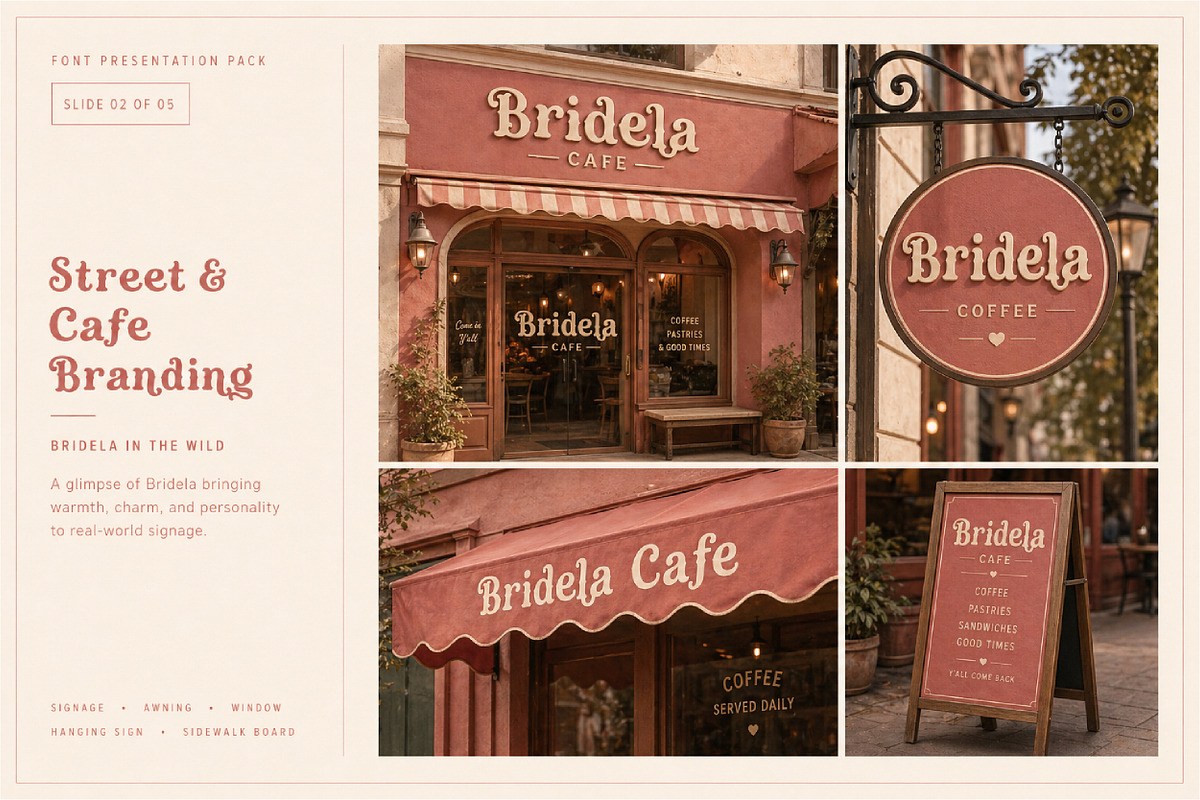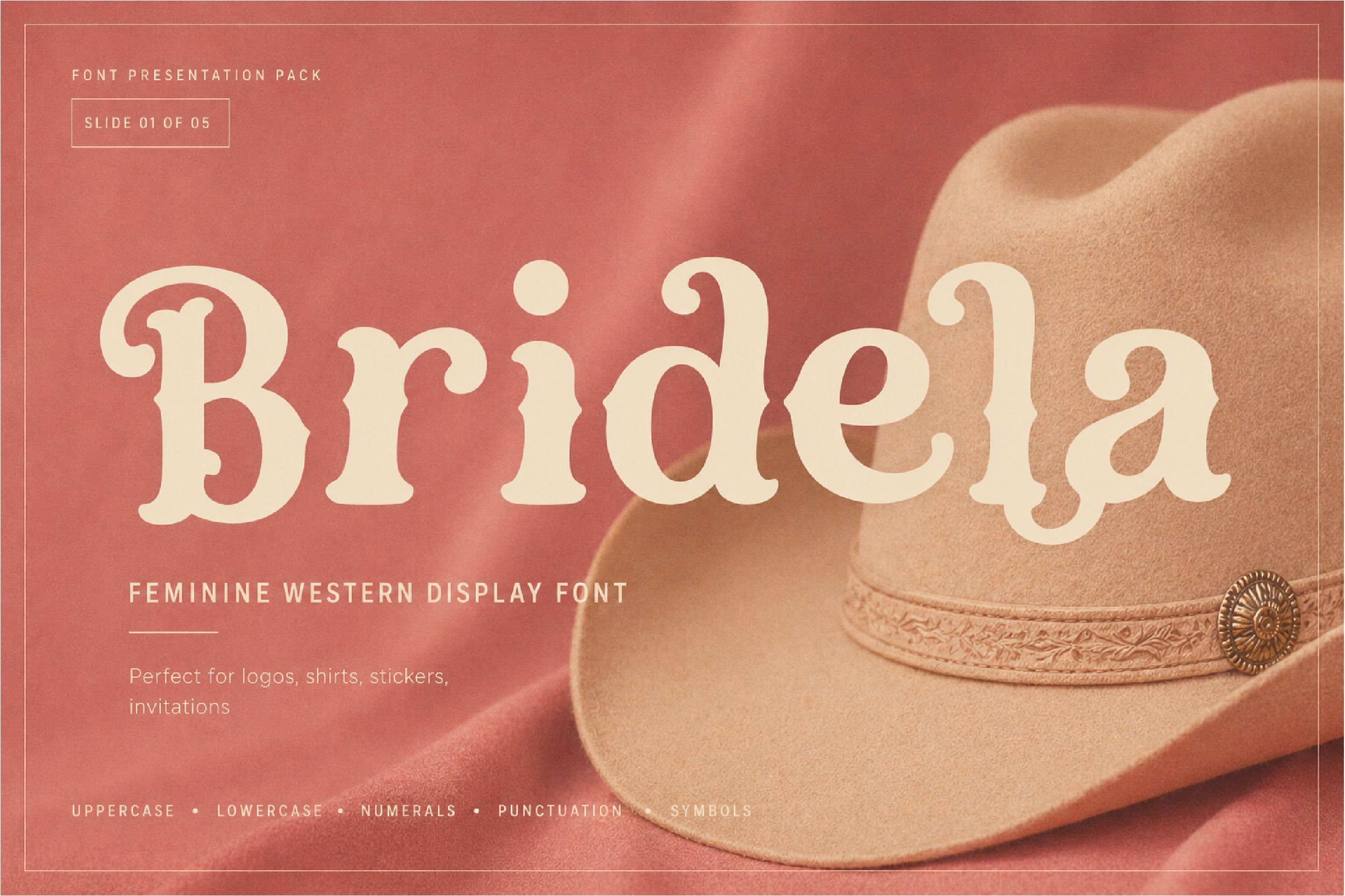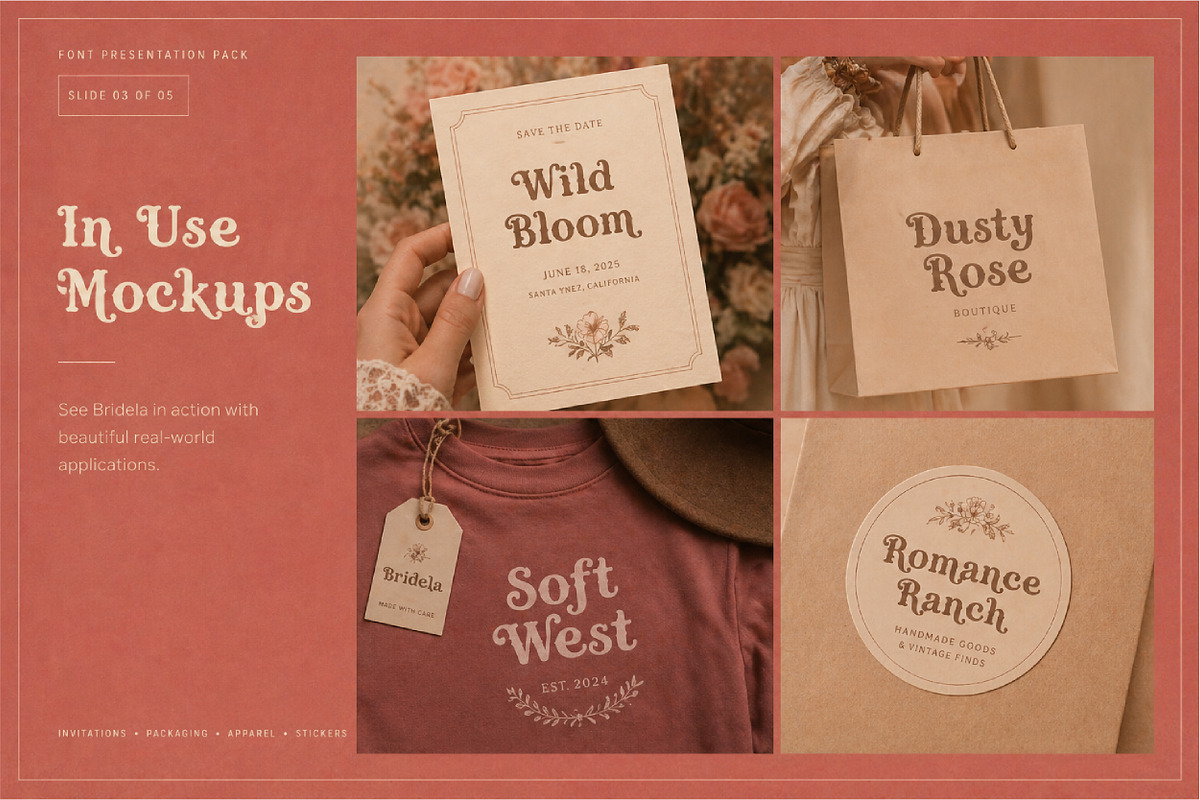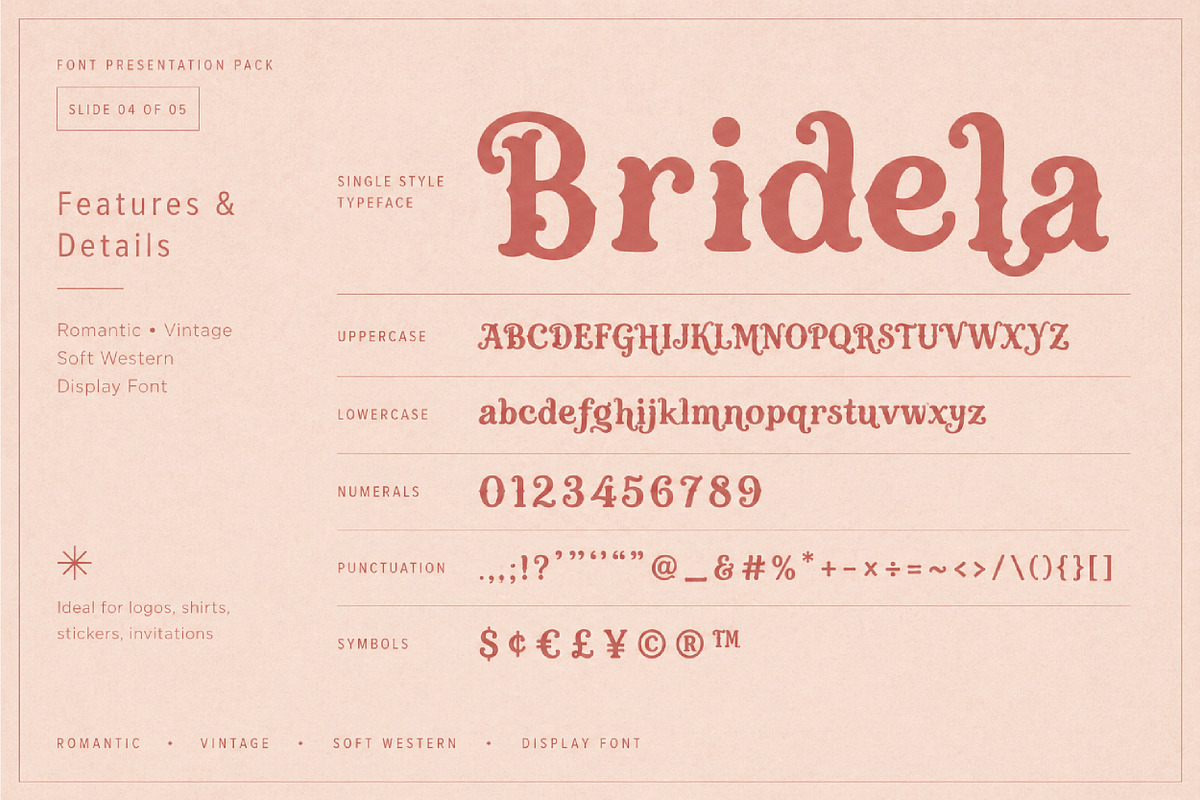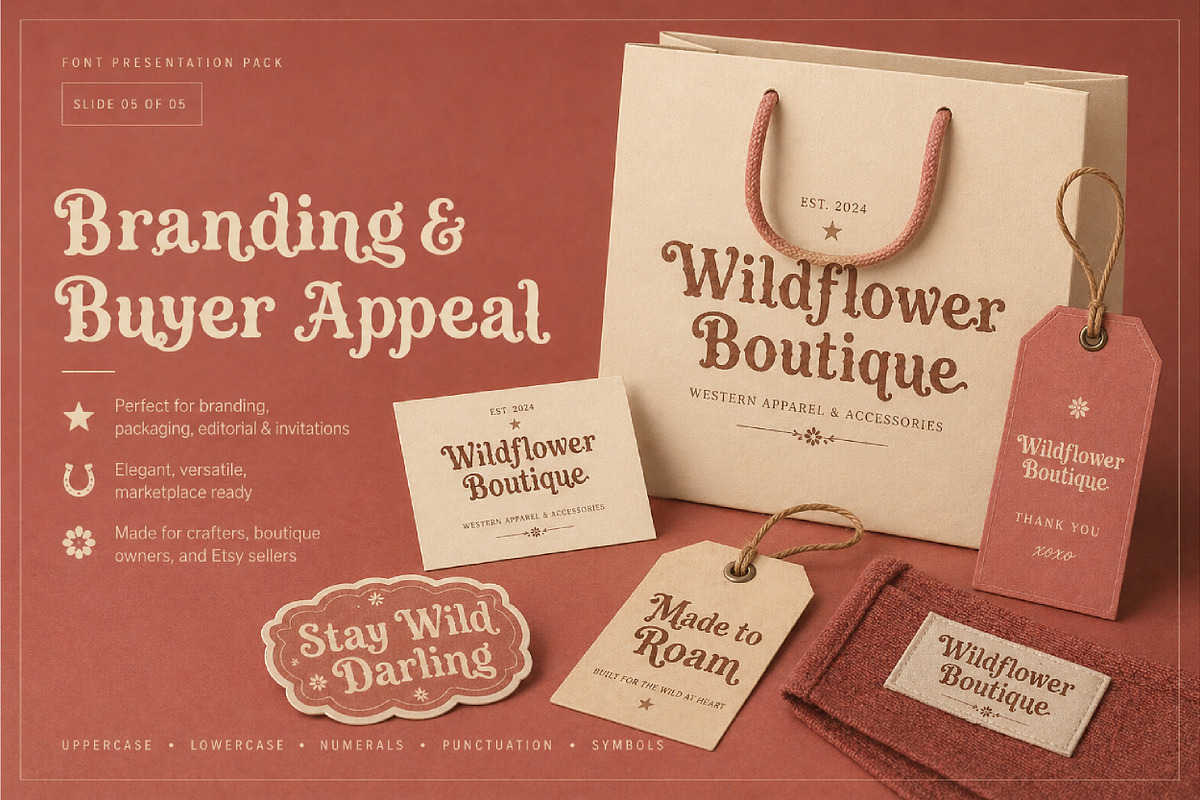
Bridela Cowgirl Western Font
Bridela is a feminine western display font with a romantic cowgirl feel, inspired by soft vintage western style, boutique branding, and rustic rodeo charm. Its bold decorative letterforms bring a sweet yet confident western personality, making it perfect for logos, shirts, stickers, invitations, product packaging, Cricut projects, SVG designs, boutique signs, social media graphics, and handmade business branding.